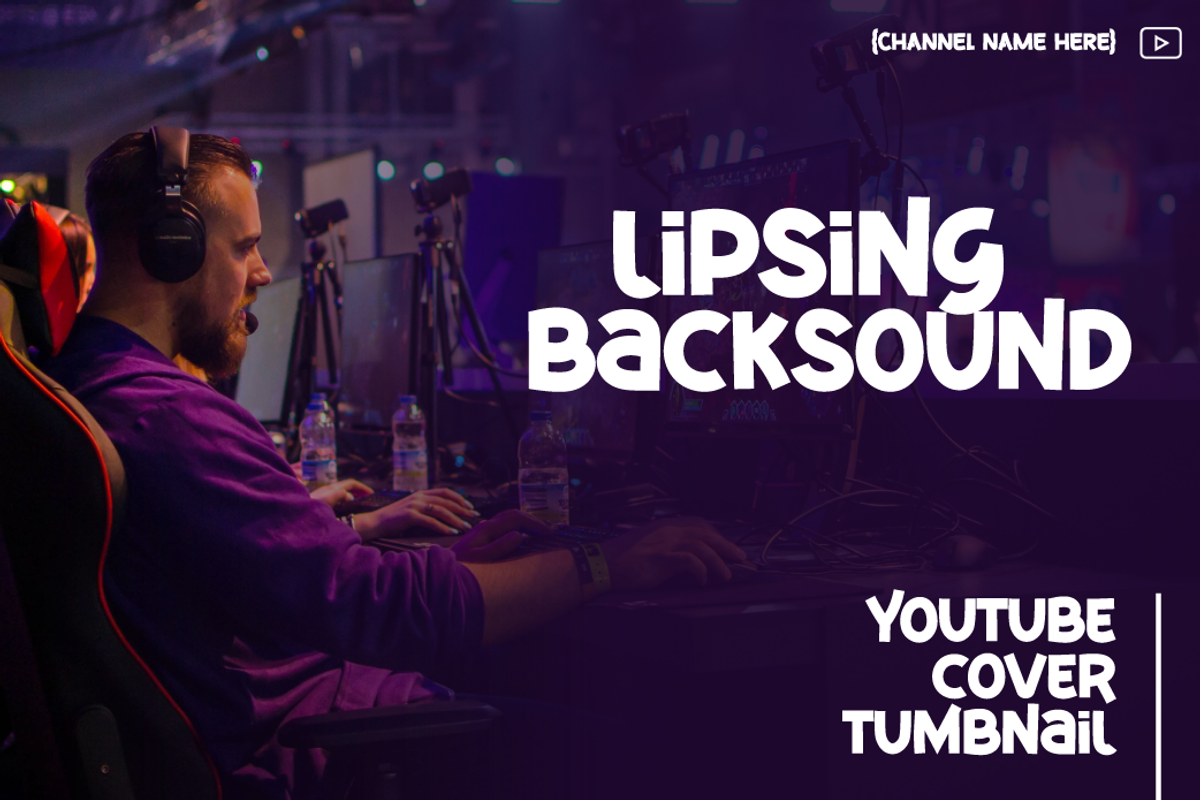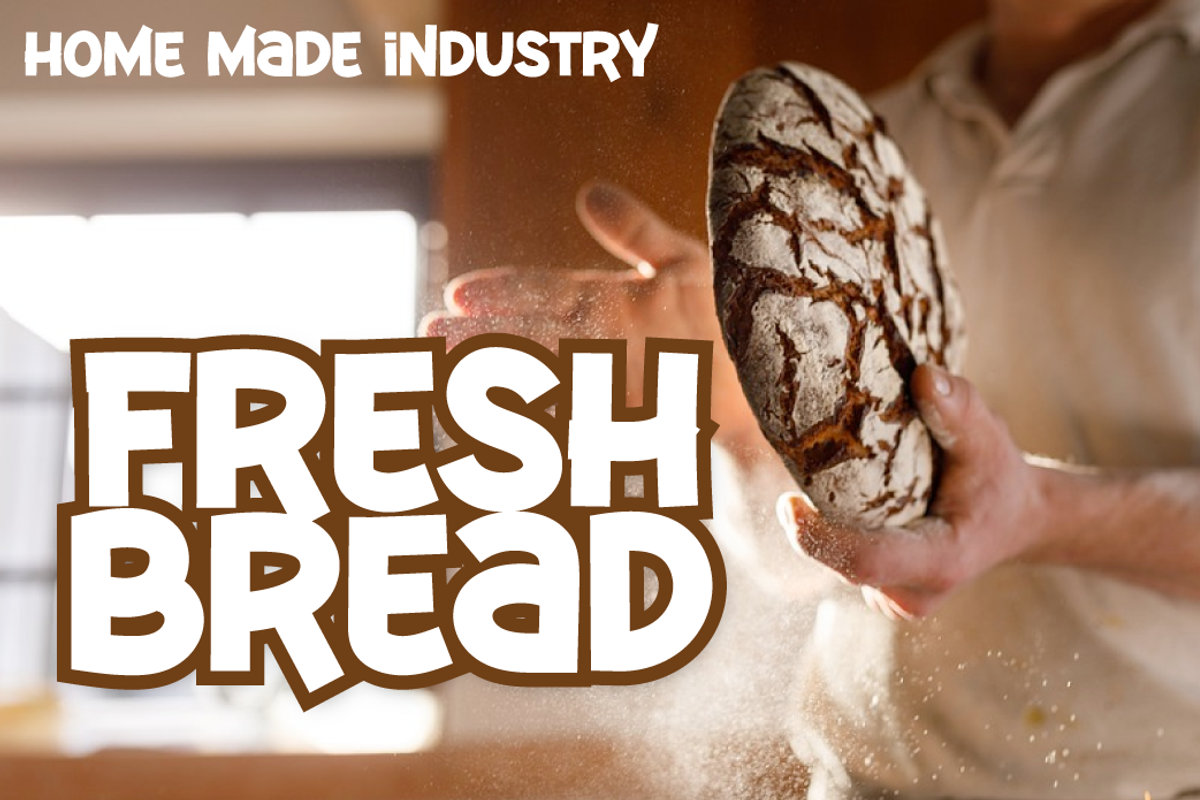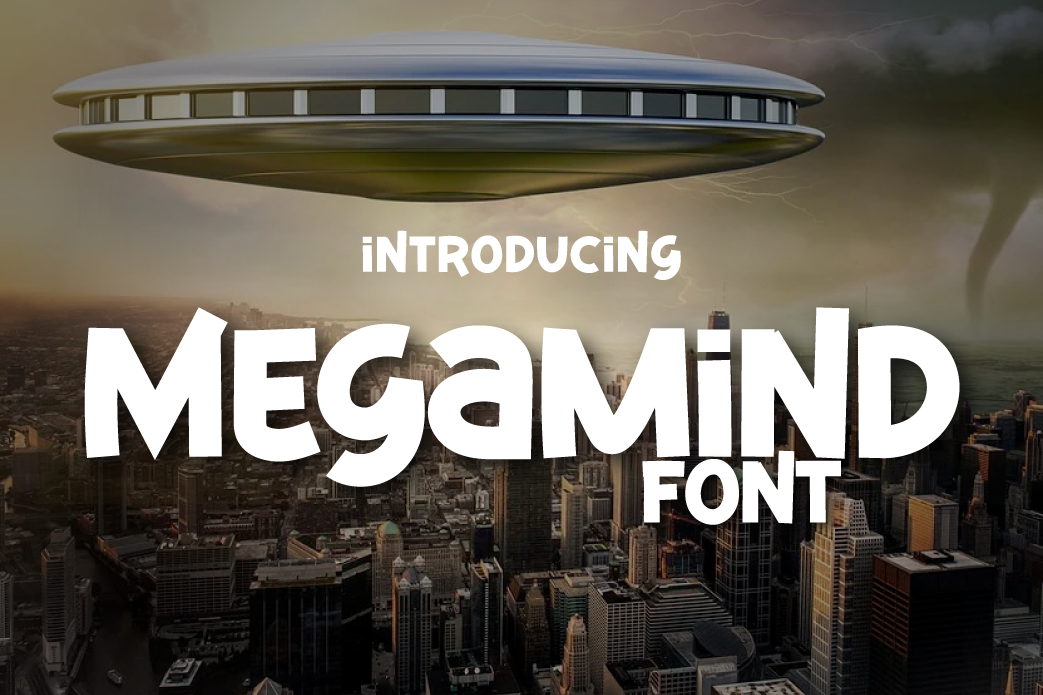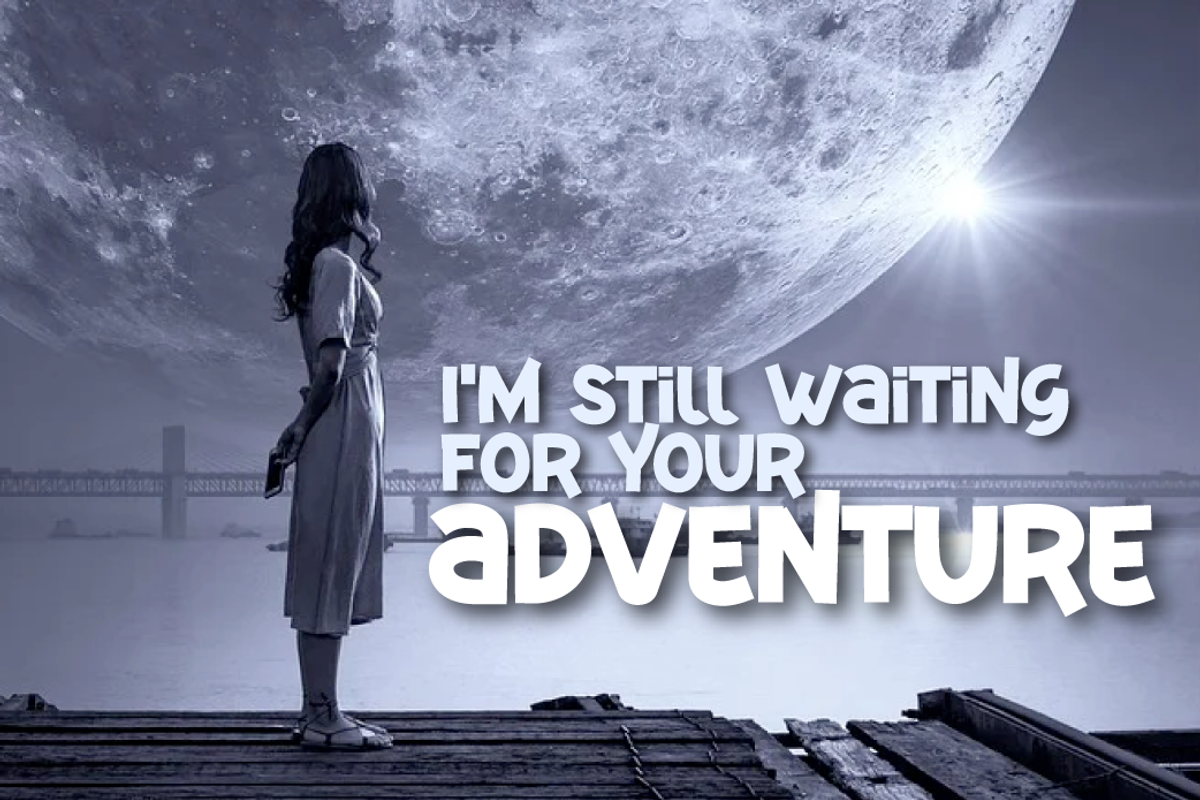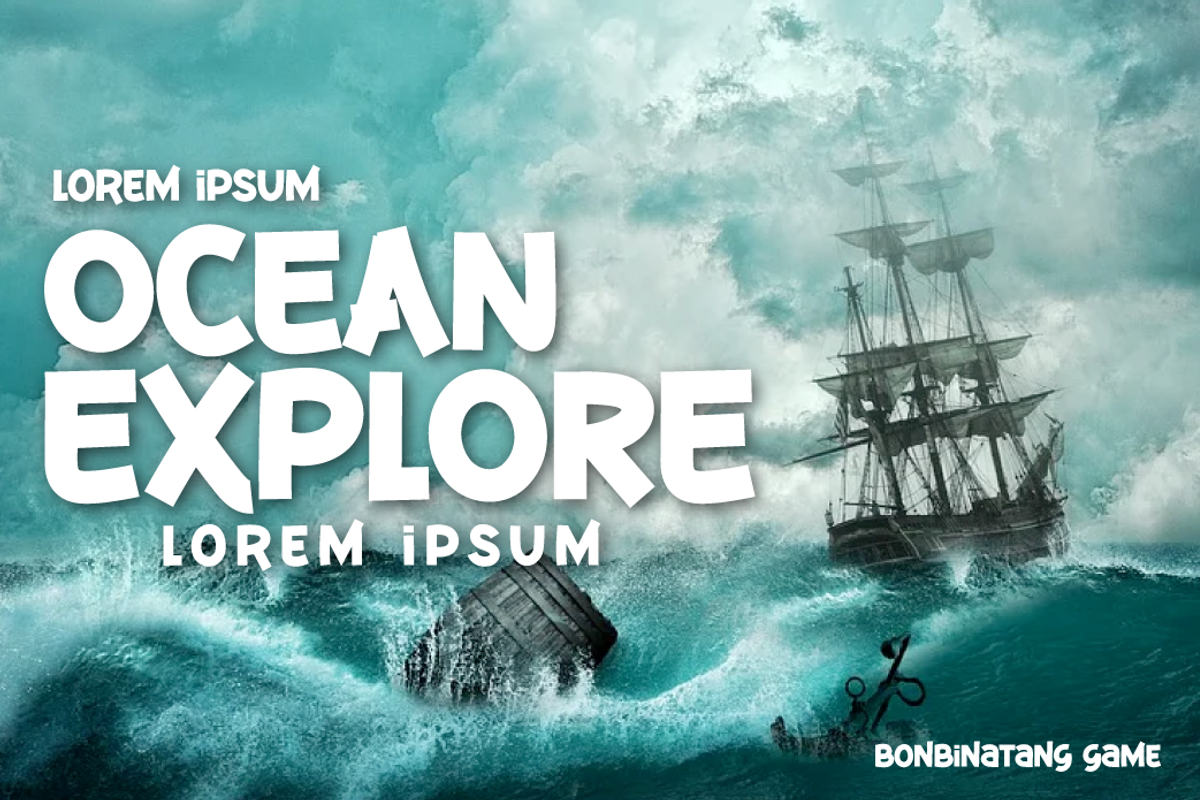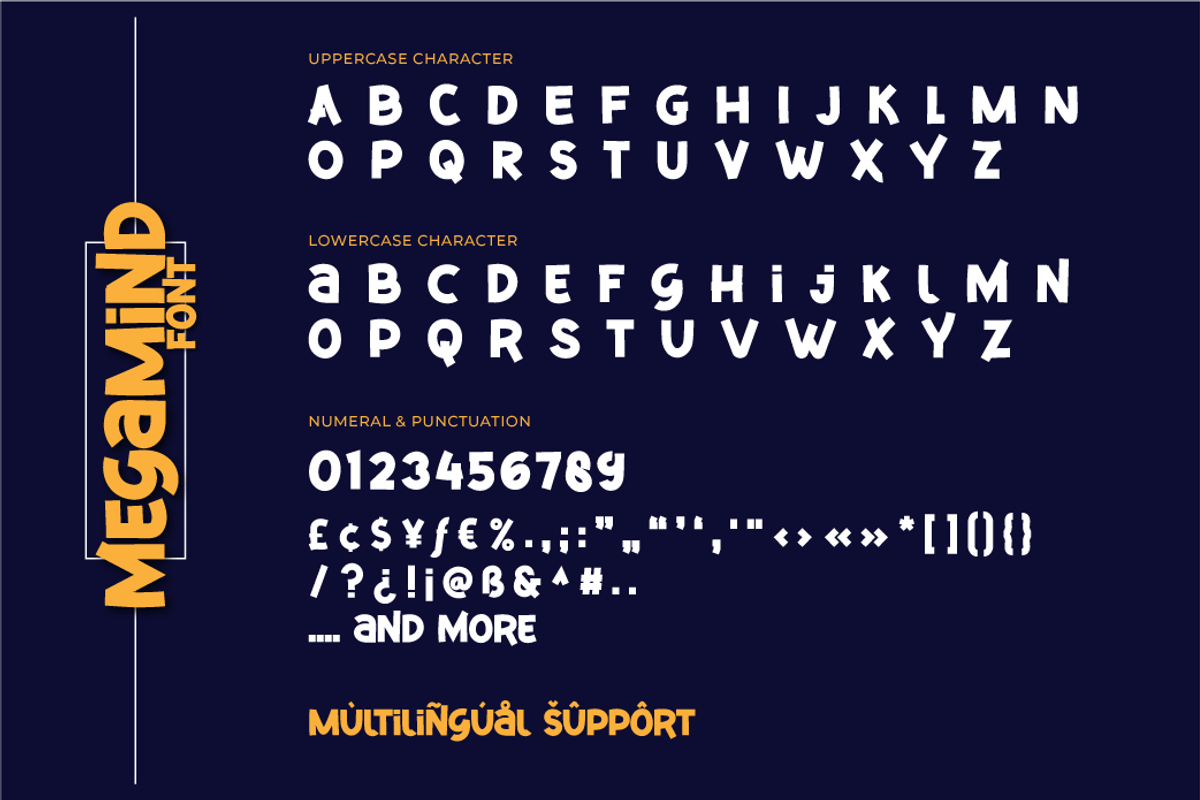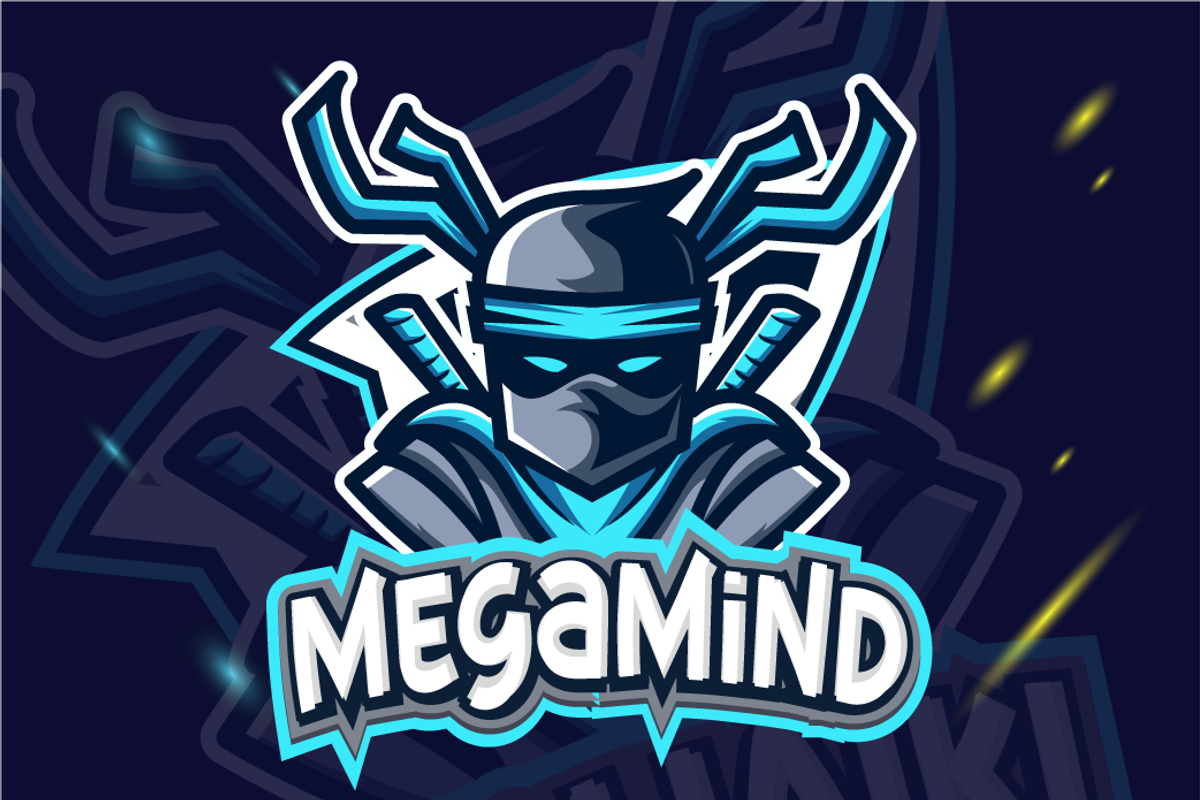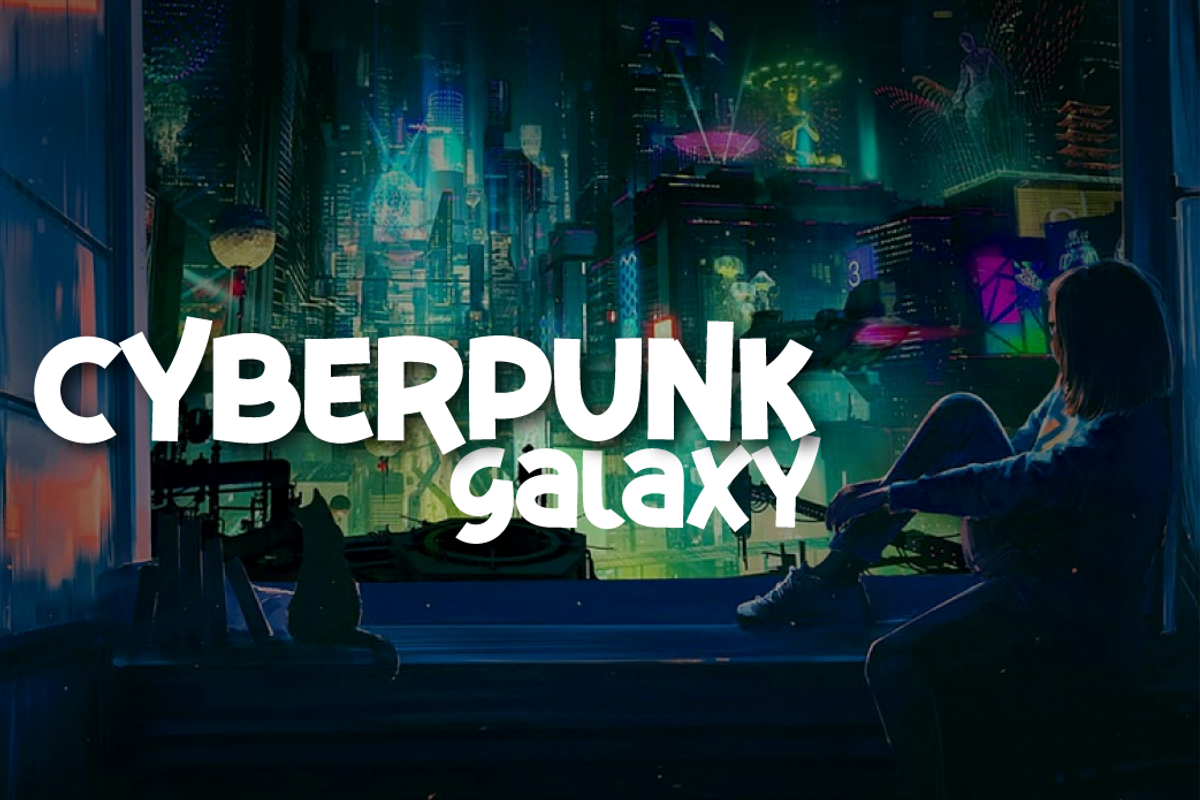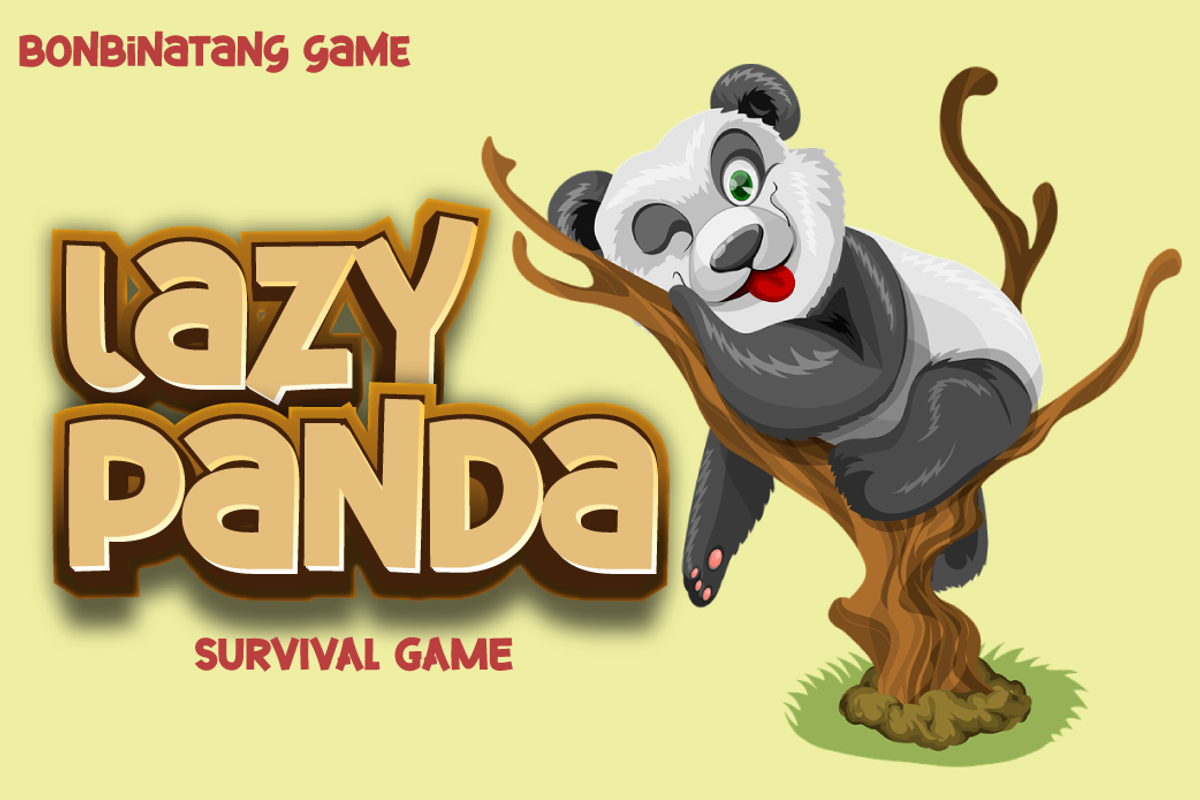
Megamind Display Font
Introducing “Megamind” – sanserif / display font with a new look, which is stylish and flexible. Its bold, solid, clear, and strong characteristics make this font look beautiful with the right portions in your various design projects
This font is made with passionate pleasure and passionate passion applied to this font design, so this font is suitable for offline or online games, PC or smartphone games, adventure posters, children’s movie titles, food titles and logos, magazines, youtube cover images, social media page covers, banner headlines, children’s book titles, film titles, and more.